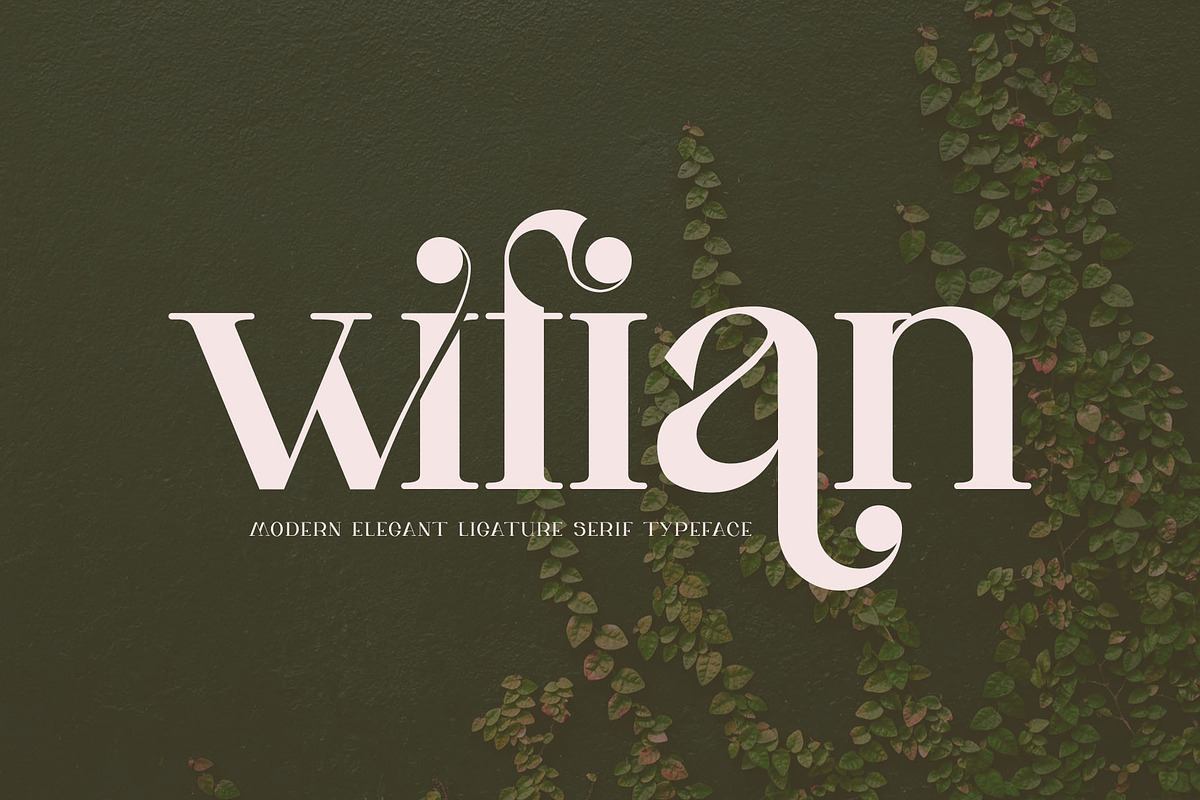
Please note, to use this font for commercial purposes, you must purchase the full version. Wifian is a sophisticated ligature serif typeface that combines timeless elegance with modern design. Perfect for high-end branding, editorial projects, logos, and more, this font features unique ligatures and refined letterforms. Whether you're designing a luxury brand, an elegant magazine, or a chic logo, Wifian brings a touch of class and versatility to your work. Test it out and enjoy free download access for personal use. Discover the beauty and style of Wifian Ligature Serif Typeface Free Download before purchasing the commercial license. Enhance your designs with the refined elegance of Wifian.